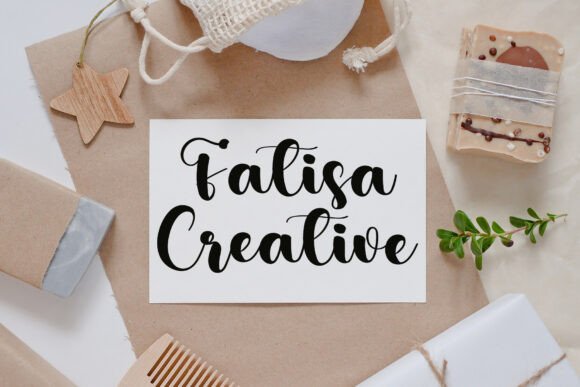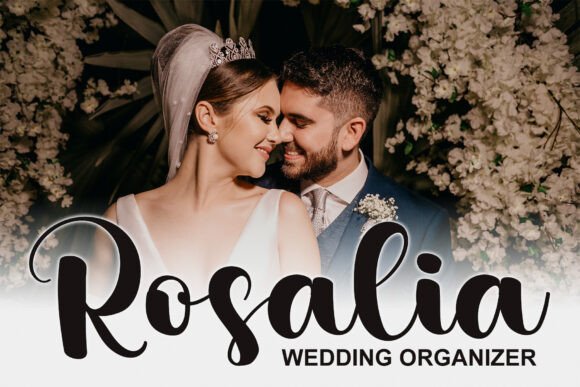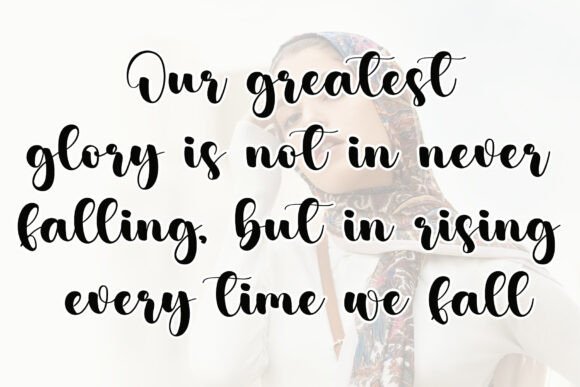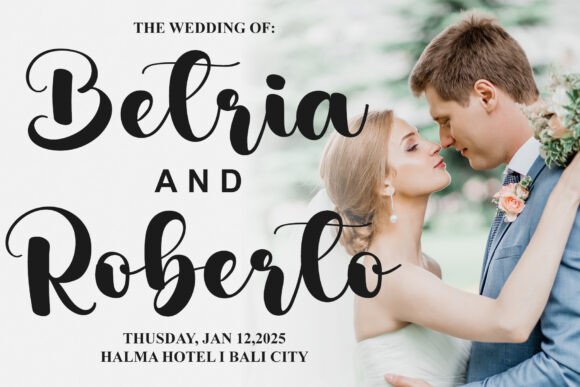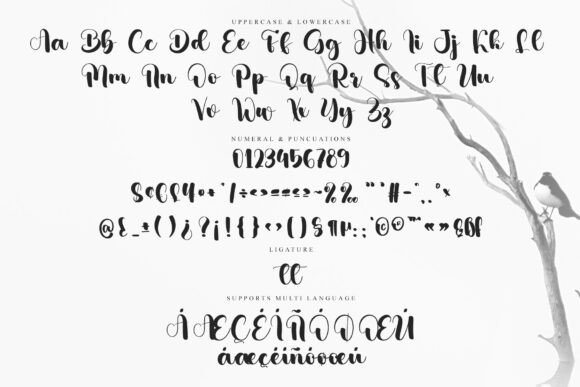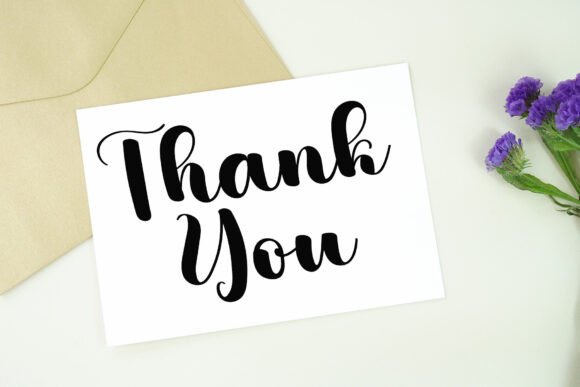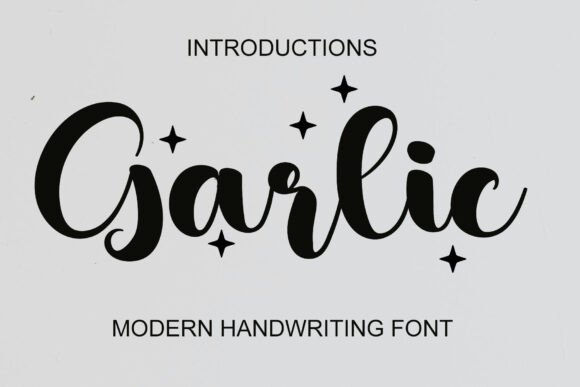
Introducing Garlic Font: Add a Touch of Holiday Magic to Your Designs
Are you looking for a typeface that embodies the spirit of the holiday season? Look no further than the Garlic Font, a festive and playful font that’s perfect for adding a touch of Christmas magic to your cards, decorations, and more. This enchanting font is adorned with swashes that will make your designs stand out and spread joy to those who see them.
What Makes Garlic Font So Special?
Garlic Font is more than just a typeface – it’s an experience. With its whimsical design and enchanting swashes, this font is sure to bring a smile to anyone’s face. Whether you’re designing Christmas cards, holiday decorations, or festive packaging, Garlic Font is the perfect choice. Its playful and festive vibe will add a touch of magic to your designs and make them truly unforgettable.
One of the best things about Garlic Font is that it’s PUA (Private Use Area) encoded. This means that you can access all of the amazing glyphs and ligatures with ease, without having to worry about complicated font editing software. With PUA encoding, you can simply select the glyphs you want to use and they’ll be applied automatically. This makes it easy to add a touch of personality to your designs and take them to the next level.
Garlic Font is a dream come true for designers and crafters who love to create festive and fun designs. Whether you’re a professional designer or a hobbyist, this font is perfect for anyone who wants to add a touch of holiday magic to their work. With Garlic Font, you can create stunning Christmas cards, decorations, and more that will delight your friends and family.
Ideas for Using Garlic Font
So, how can you use Garlic Font to add a touch of holiday magic to your designs? Here are a few ideas to get you started:
- Create stunning Christmas cards that will wow your friends and family
- Design festive holiday decorations, such as garlands, banners, and more
- Add a touch of personality to your festive packaging designs
- Create whimsical holiday-themed crafts, such as ornaments, gift tags, and more
Tips for Getting the Most Out of Garlic Font
To get the most out of Garlic Font, here are a few tips to keep in mind:
- Experiment with different font sizes and colors to add depth and dimension to your designs
- Use the swashes and glyphs to add a touch of personality to your designs
- Combine Garlic Font with other festive fonts and graphics to create a unique and eye-catching design
- Don’t be afraid to get creative and try new things – Garlic Font is all about having fun and adding a touch of holiday magic to your designs!